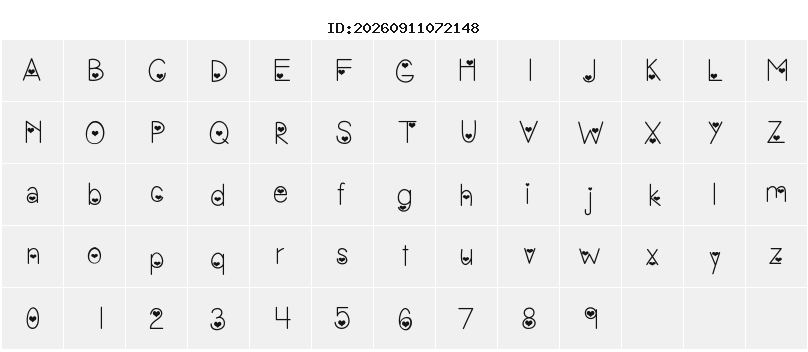
VanessasValentine Preview
• Font Name: VanessasValentine
• Full Font Name: VanessasValentine
• PostScript Name: VanessasValentine
About VanessasValentine.ttf
VanessasValentine.ttf is a modern, elegant sans-serif font designed for ultimate readability and visual harmony. Perfect for branding, headlines, web design, and print materials.